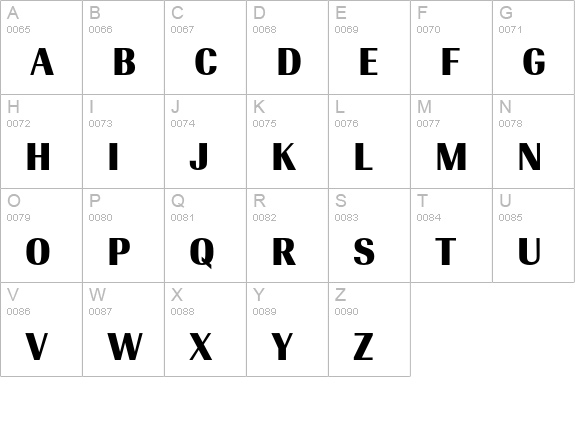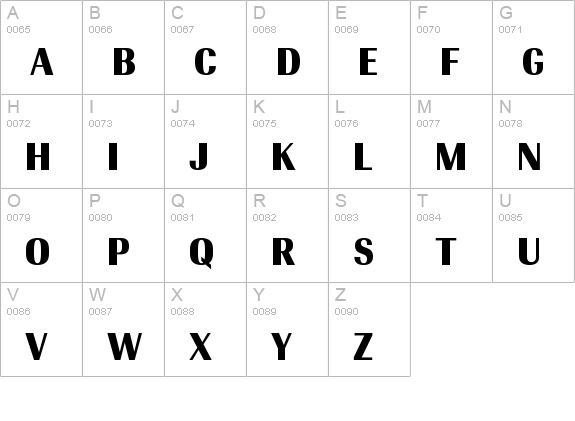
RadiantEFText-Black Font Details
RadiantEFText-Black is a maximum-weight, dramatic variant in the RadiantEFText typeface family \xE2\x80\x94 well suited to maximum-impact headlines, posters, and packaging.
RadiantEFText-Black font is a stunning typeface that exudes elegance and sophistication. With its bold and powerful letterforms, this font commands attention and makes a lasting impression. Perfect for headlines, logos, and other design projects that require a strong and impactful presence. The RadiantEFText-Black font is characterized by its sleek and modern design, with clean lines and sharp edges that give it a contemporary feel. Its versatility allows it to be used in a variety of design styles, from minimalist to futuristic. One of the best things about RadiantEFText-Black font is that it is freely available to download at FontsMarket.com. This means that you can easily access and use this impressive font without any cost. Whether you are a professional designer or a hobbyist, having access to high-quality fonts like RadiantEFText-Black font can greatly enhance your creative projects. With its wide range of characters, including uppercase, lowercase, numbers, and special symbols, RadiantEFText-Black font offers endless possibilities for creative expression. Its legibility and readability ensure that your message will be effectively communicated to your audience. So why wait? Download the RadiantEFText-Black font today from FontsMarket.com and add a touch of elegance and power to your design projects. Whether you need to create impactful headlines, eye-catching logos, or attention-grabbing posters, this font is sure to elevate your designs to the next level. Don't miss out on this amazing opportunity to enhance your creative endeavors with this free font.